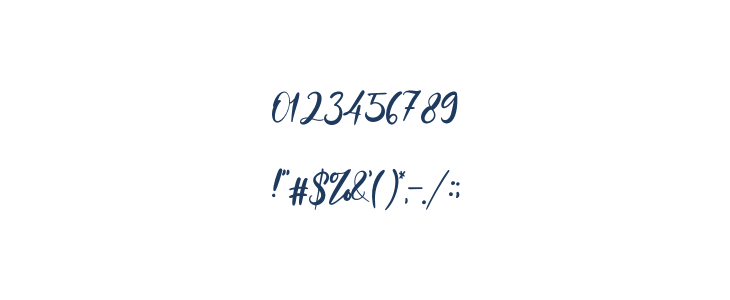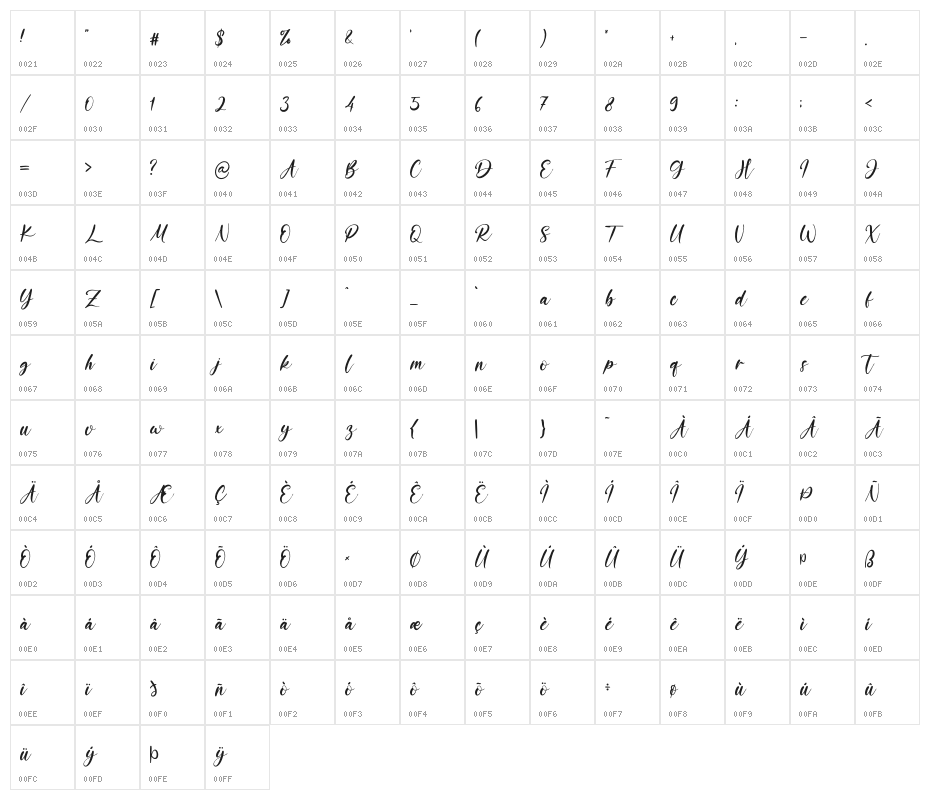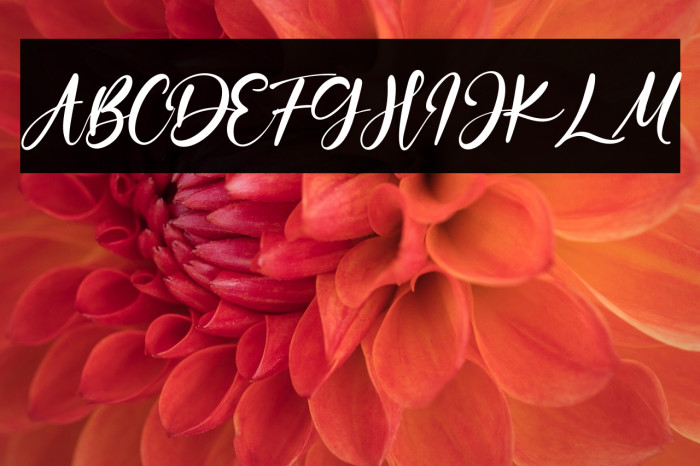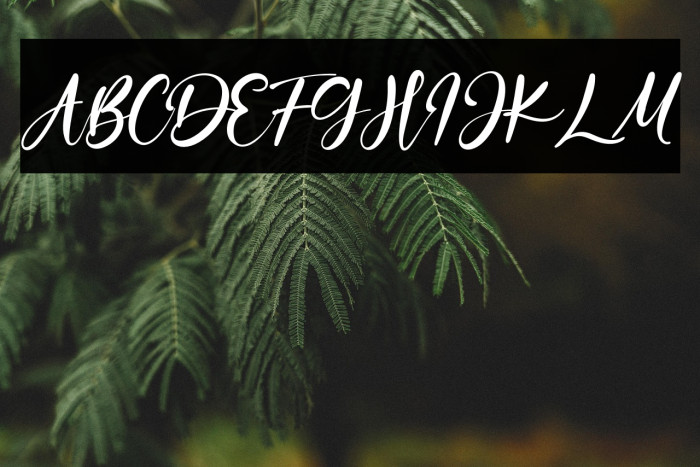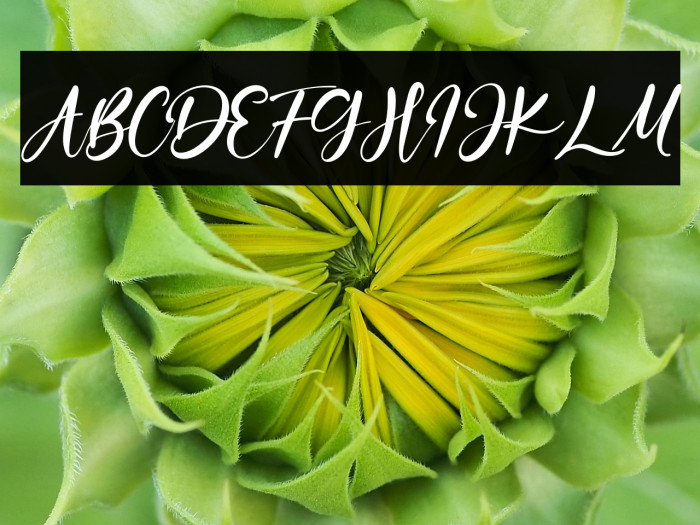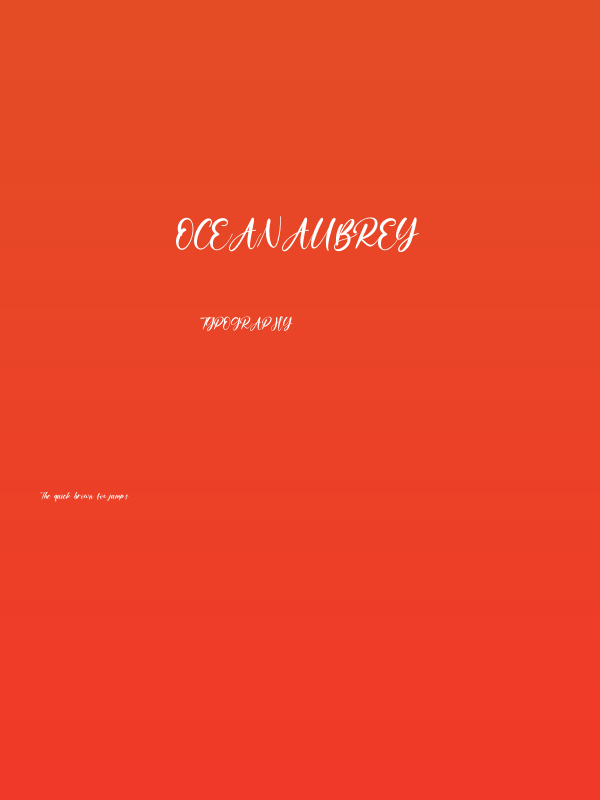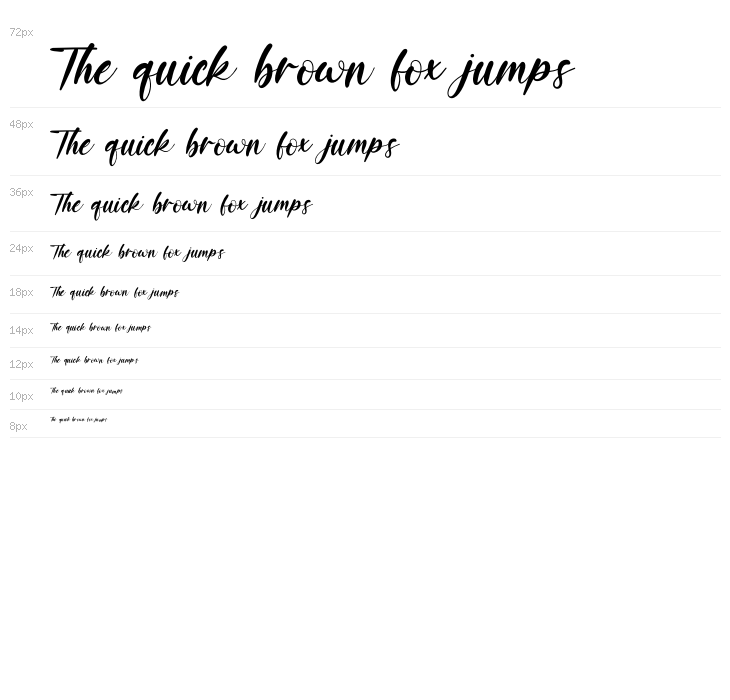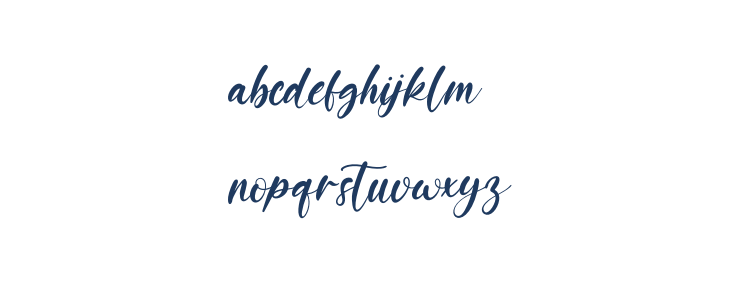
OceanAubrey Font
OceanAubrey Description
This font exudes elegance and fluidity, characterized by its cursive script style. The letters are interconnected with smooth, flowing strokes, giving it a handwritten appearance. The uppercase letters are slightly more elaborate, with graceful loops and swashes, while the lowercase letters maintain a consistent rhythm and balance. The numerals and special characters are designed to complement the alphabet, maintaining the same flowing aesthetic. This font is perfect for projects that require a personal touch, such as invitations, greeting cards, and branding materials.
| Overall Style | Elegant, Handwritten |
| Use Case | Logos, Invitations, Greeting cards |
| Proposed Projects | Ideal for wedding invitations, personal branding, greeting cards, and elegant packaging designs. |